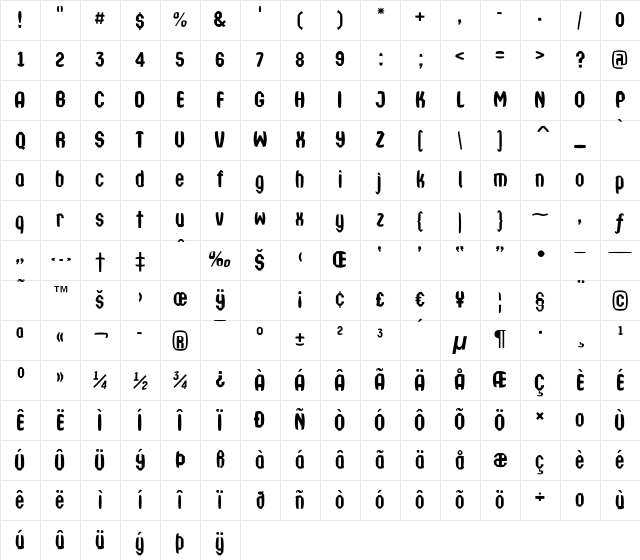
a_TechnicsBrl DemiBold
Style: DemiBold
Designer: W.Chufarofsky & M.Slutsker
Design Context for a_TechnicsBrl
a_TechnicsBrl has a distinctly futuristic character, with geometric precision and clean angles that feel at home in technology, gaming, and sci-fi contexts. Its bold stroke weight gives it real presence on the page.